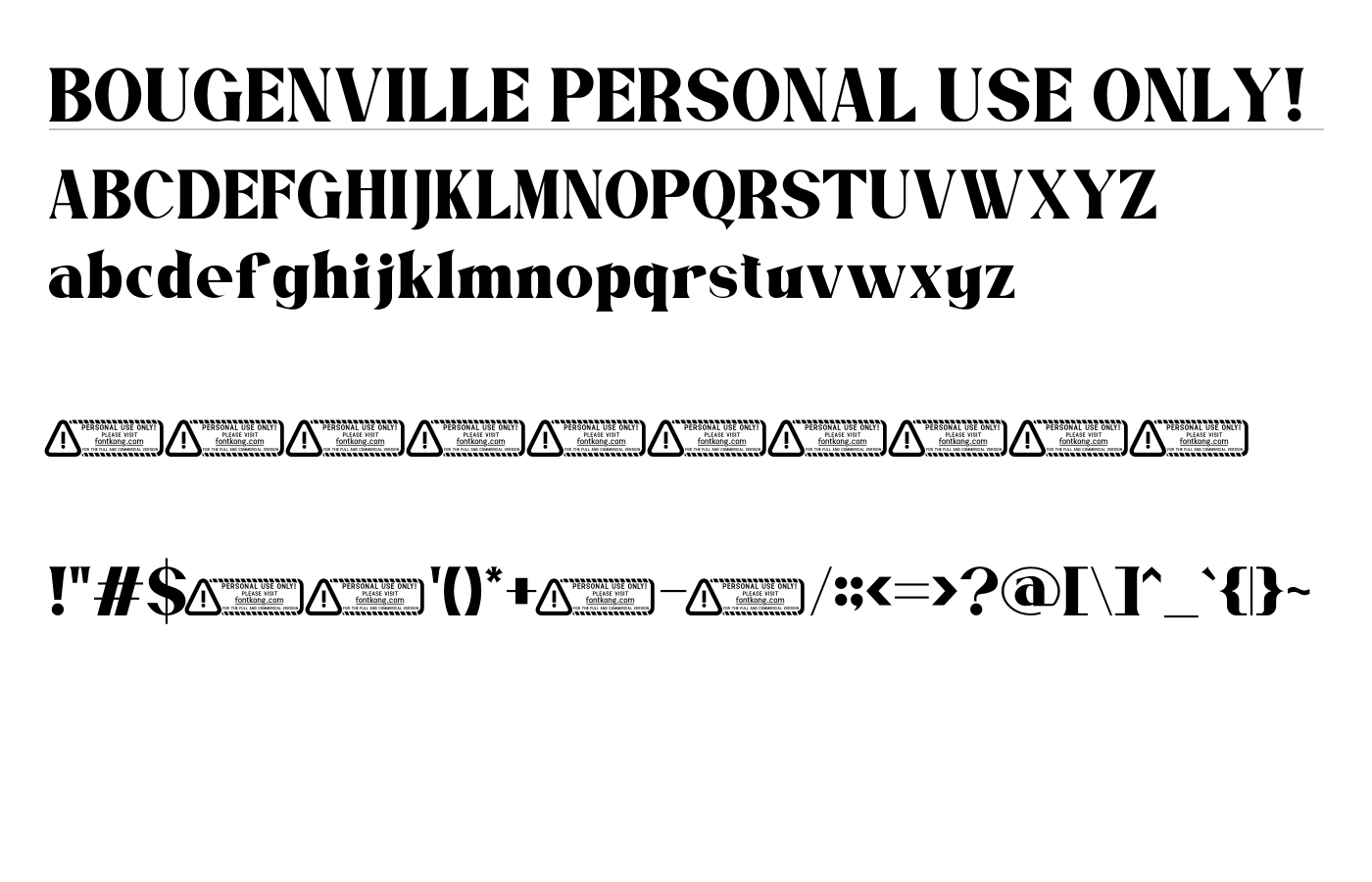
Bougenville is a bold serif font that combines classic elegance with a strong, modern presence. Its high contrast between thick and thin strokes, sharp serifs, and distinctive letterforms make it ideal for creating impactful headlines and luxury branding. This font works well in fashion, editorial, and packaging design where a sophisticated yet assertive style is desired.